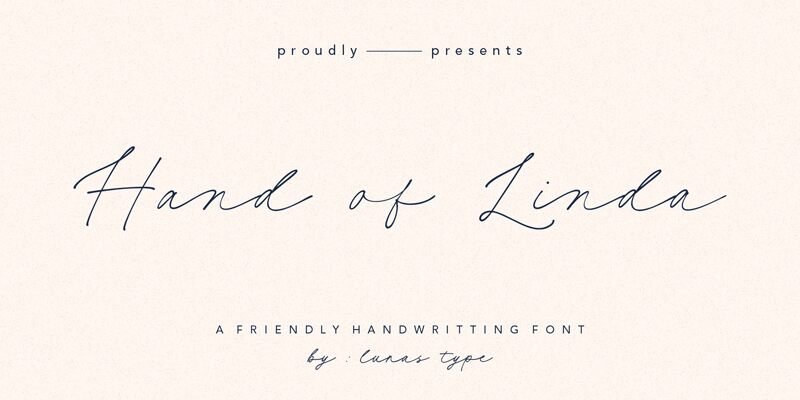
Hand of Linda, crafted by Lunas Type, exudes a delicate and personal touch with its handwritten style and extra-light weight. The font's gentle curves and flowing lines mimic the nuanced strokes of a fine ink pen, offering an aesthetic that is both elegant and intimate. Its legible yet artistic form makes it a versatile choice for design projects aiming to convey authenticity and a handcrafted feel.
Whether it's for invitations, branding, or editorial design, Hand of Linda adds a whisper of sophistication without overwhelming the senses. This font's understated beauty ensures it can blend seamlessly into various creative contexts while maintaining its distinctive character.